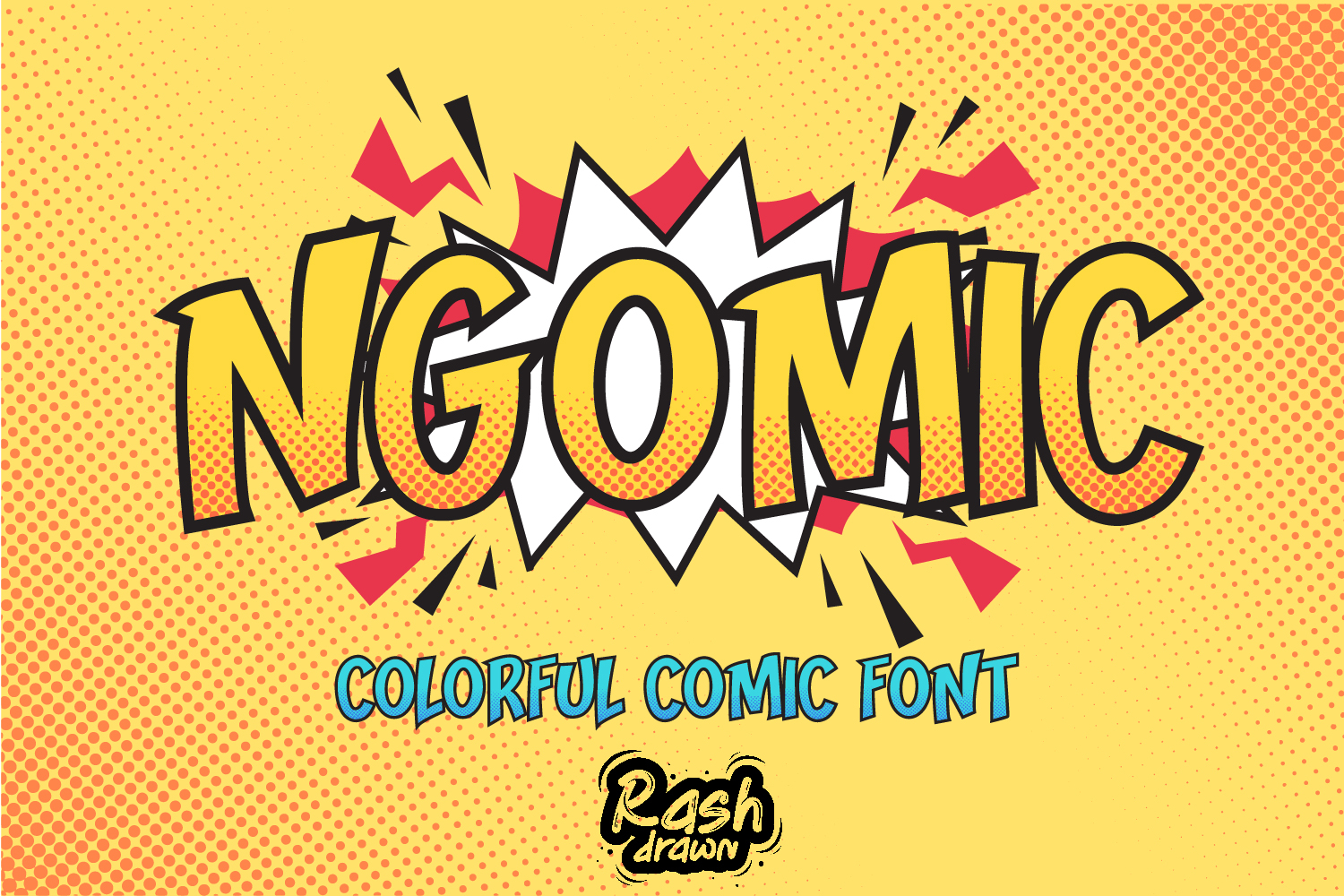
Ngomic
Ngomic-Red
Ngomic-Blue
Ngomic-Yellow
NGOMIC - Vibrant Colorful Comic Font
Bring your designs to life with NGOMIC, a high-energy, colorful comic font inspired by classic pop-art and superhero aesthetics. Designed for creators who want to skip the tedious coloring process, this font comes pre-styled with a bold, vibrant look that "pops" right off the screen!
Whether you’re working on a comic book, a YouTube thumbnail, T-shirt designs, or eye-catching posters, NGOMIC provides that authentic retro comic vibe with a modern, clean finish.
• No More Coloring: Pre-colored letters save you hours of work.
• Three Color Styles: Includes dynamic variations to suit different backgrounds.
• Bonus Comic Elements: Comes with "Boom Speech" bubbles and comic sparks in EPS format to complete your layout.